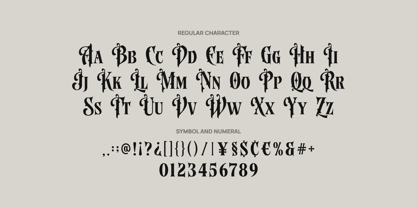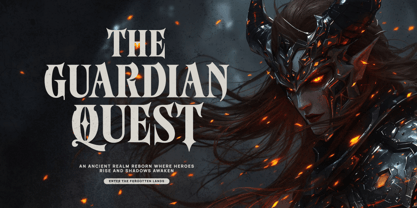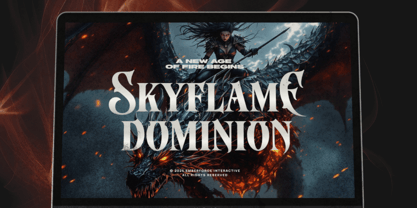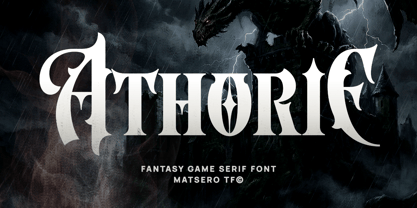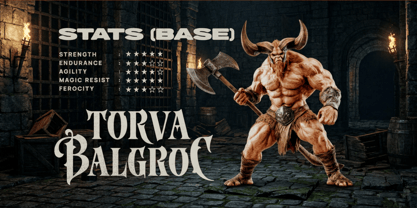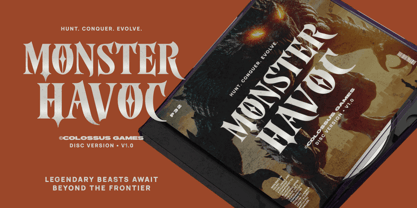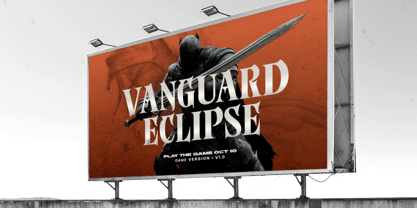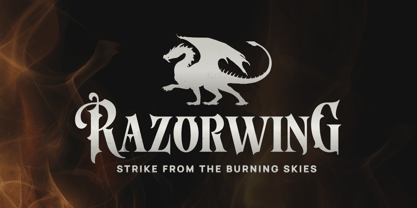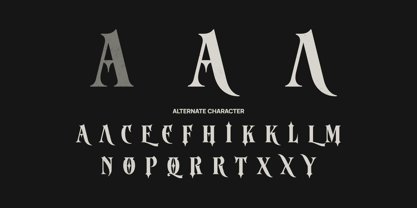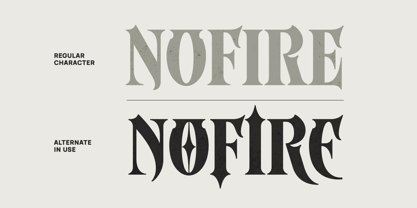
Athorie
von Matsero
Die Schriftfamilie Athorie wurde von Endra Kurnia Aziz entworfen und von Matsero veröffentlicht. Athorie enthält 1 Stile. Mehr über diese Familie
Athorie is a bold fantasy game serif font designed for cinematic titles, heroic branding, and dark-fantasy design projects. Featuring sharp medieval curves and dramatic gothic ornaments, this typeface creates an epic and powerful atmosphere in every layout. It is ideal for RPG game titles, adventure posters, esports logos, book covers, and high-impact headlines. Enhance your creative projects with Athorie's unique style and captivating presence.